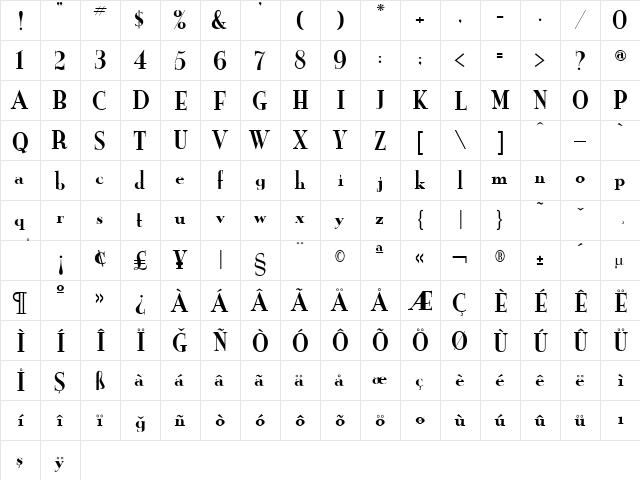
New Order Regular Font Preview
New Order Regular
Design Context for New Order Typeface
New Order takes a measured approach to typography — its balanced proportions and neutral character make it a reliable workhorse for both digital and print work.